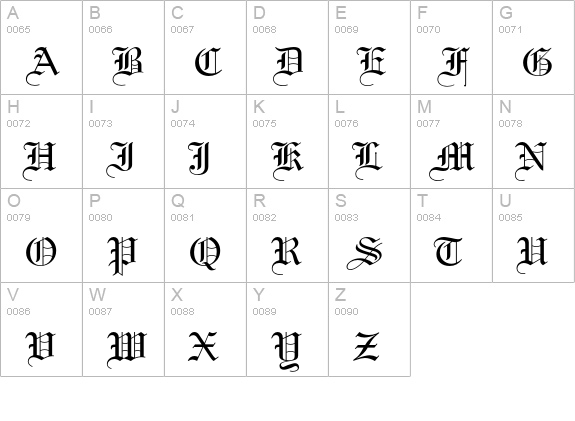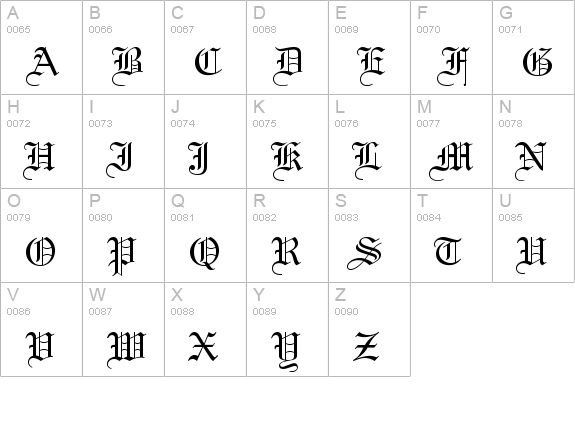
Wedding Text Font Details
Introducing the exquisite Wedding Text font, a timeless and elegant typeface designed specifically for those unforgettable moments on your special day. With its delicate and graceful letterforms, Wedding Text effortlessly captures the romantic essence of weddings, making it the perfect choice for invitations, thank you cards, and all other wedding-related stationery. This stunning font features intricate detailing and beautifully crafted curves, adding a touch of sophistication and refinement to any design. Its versatile nature allows it to be used in a variety of settings, from traditional and formal to modern and chic. Whether you're planning a grand celebration or an intimate gathering, Wedding Text is sure to impress your guests and set the tone for an unforgettable event. And the best part? Wedding Text is completely free! That's right, this exquisite font is freely available to download at FontsMarket.com. Say goodbye to expensive font purchases and hello to endless possibilities for your wedding designs. With Wedding Text, you can create stunning typography that perfectly complements your wedding theme, without breaking the bank. So why wait? Download Wedding Text today and add a touch of elegance and sophistication to your wedding stationery. Whether you're a professional designer or a DIY bride, this font will elevate your creations and leave a lasting impression on your guests. Don't miss out on this incredible opportunity to enhance your wedding designs with the beauty of Wedding Text. Get your free download now at FontsMarket.com and let your creativity soar!